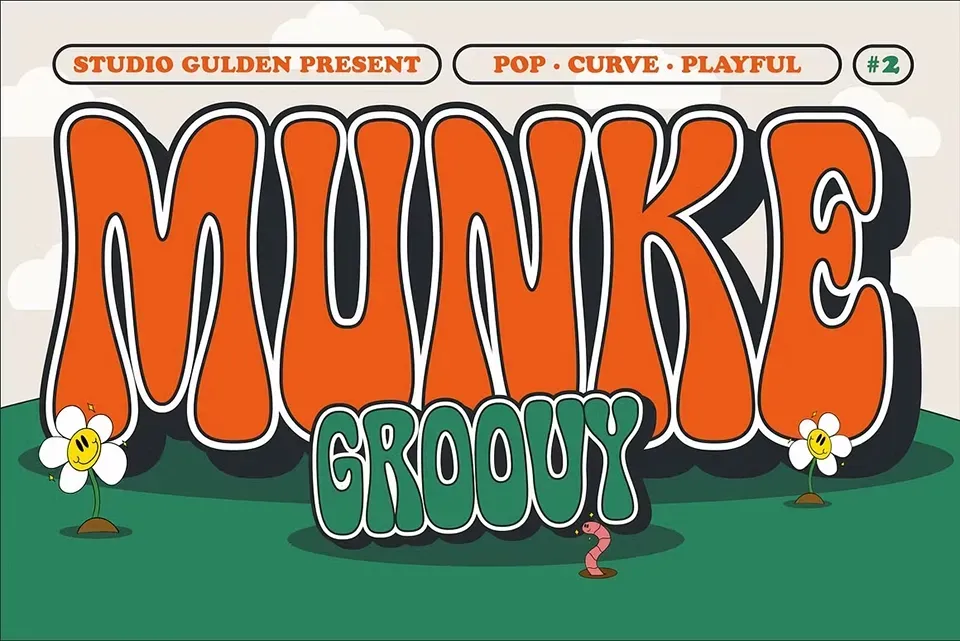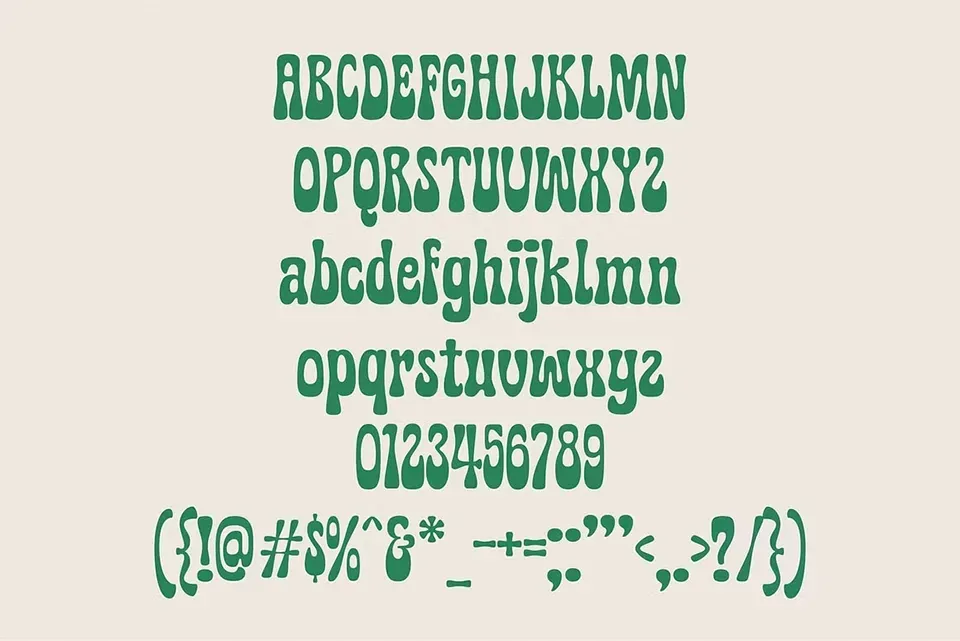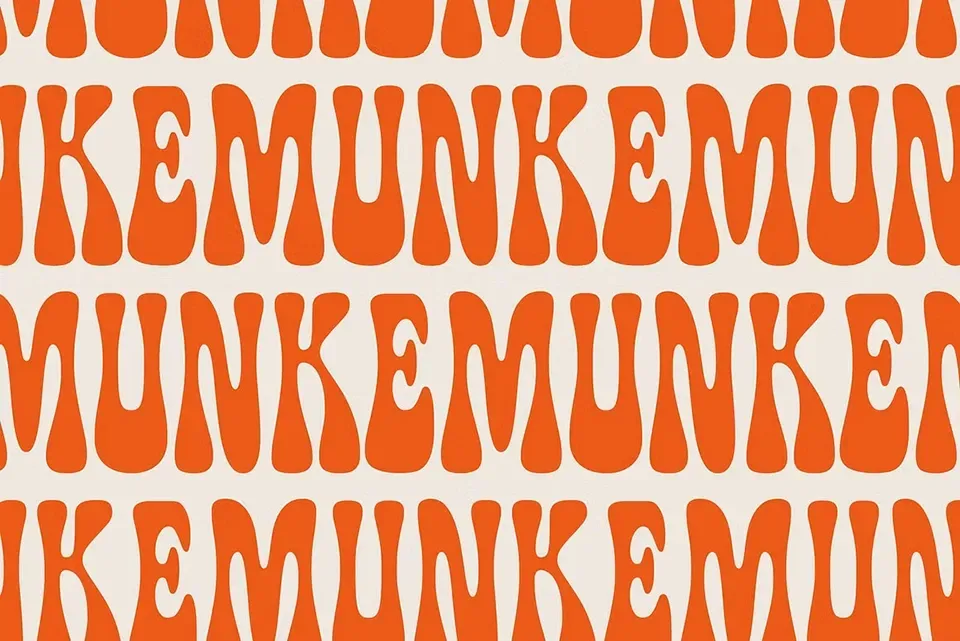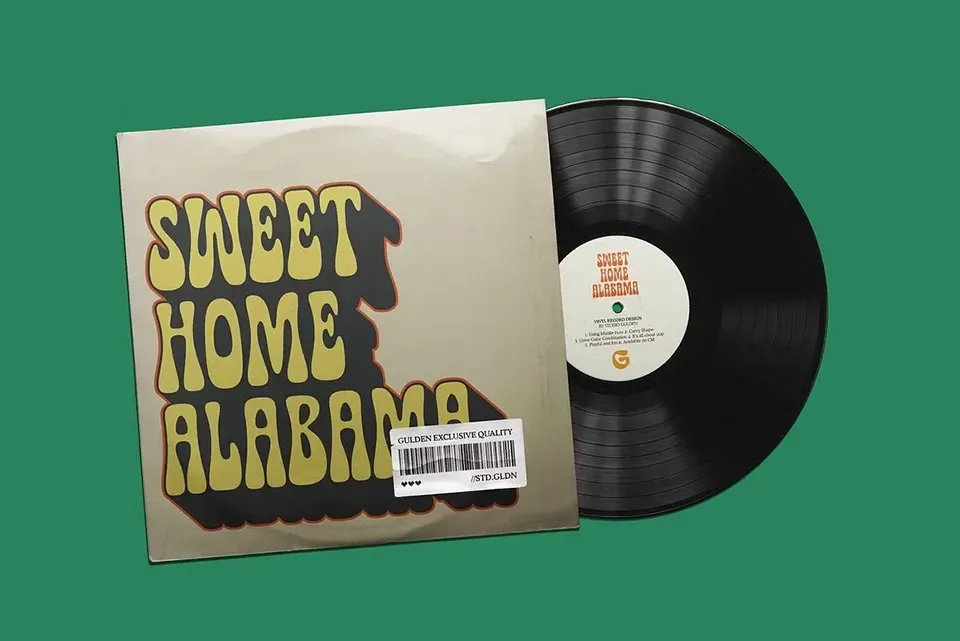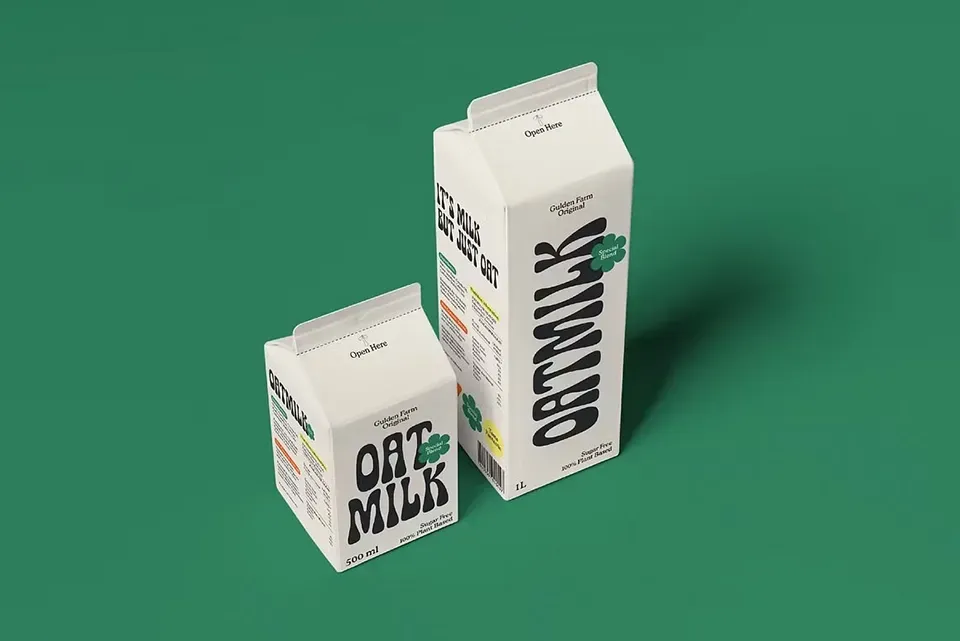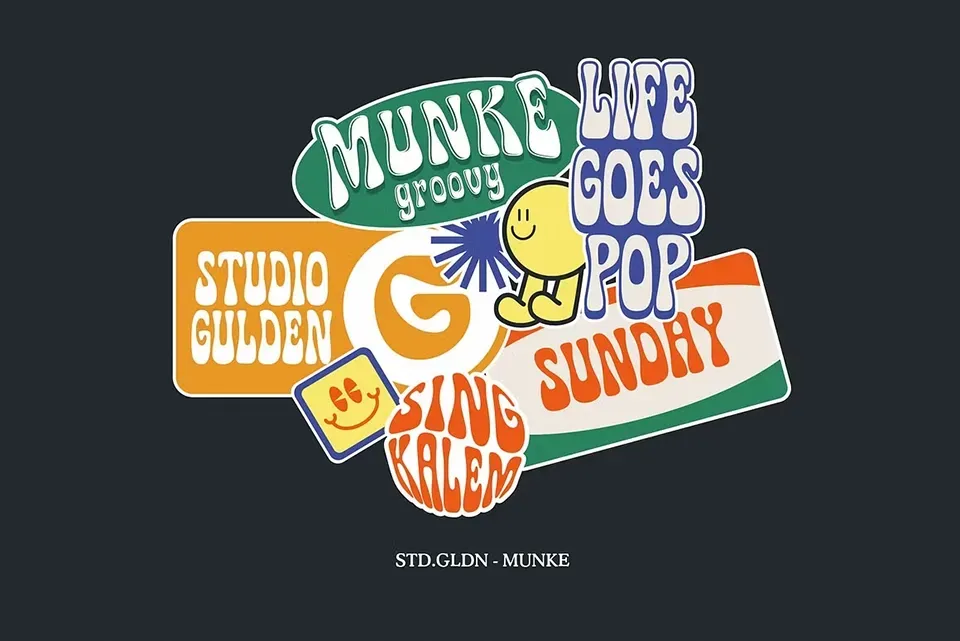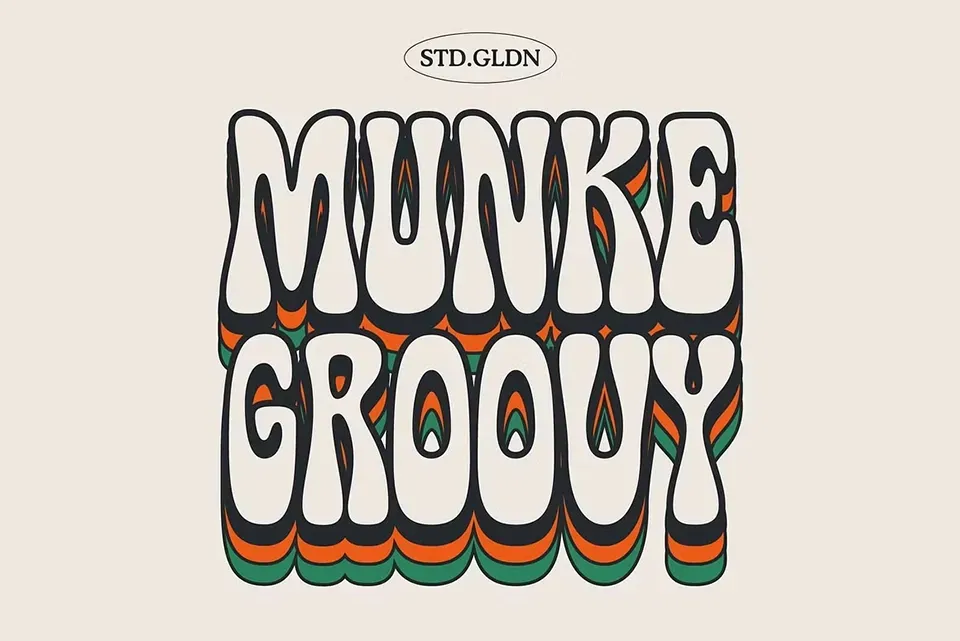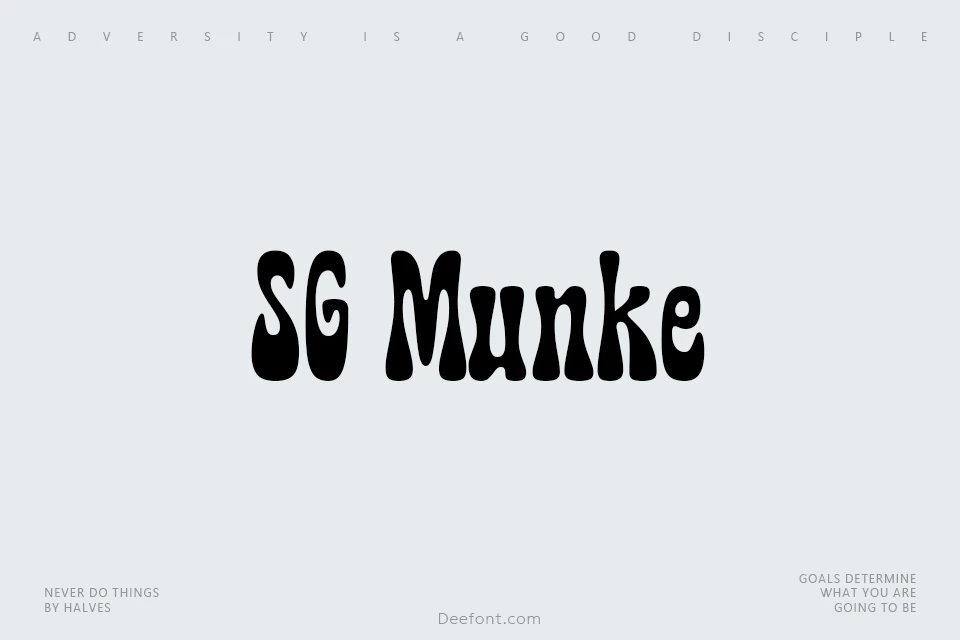
SG Munke Font
SG Munke Font is a vibrant and playful groovy display typeface designed by Studio Gulden. With its bold, curvy letterforms and retro-inspired aesthetic, this font captures the essence of 70s pop art and funky design. Perfect for posters, branding, packaging, and creative projects, SG Munke adds a cheerful and dynamic touch to any composition. Its unique style combines thick outlines with smooth curves, making it ideal for designs that demand attention and personality. Whether used for headlines or decorative text, SG Munke Font brings energy and charm to your work, making it a standout choice for bold and imaginative creations.